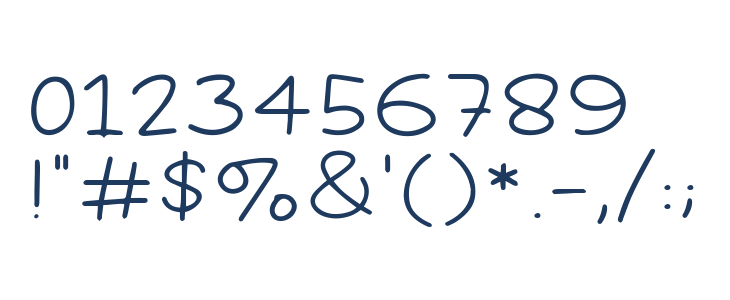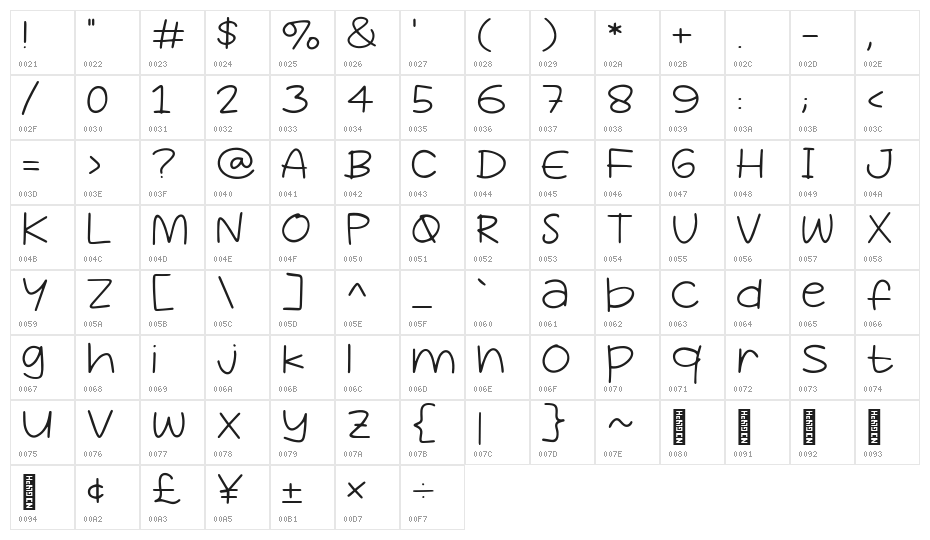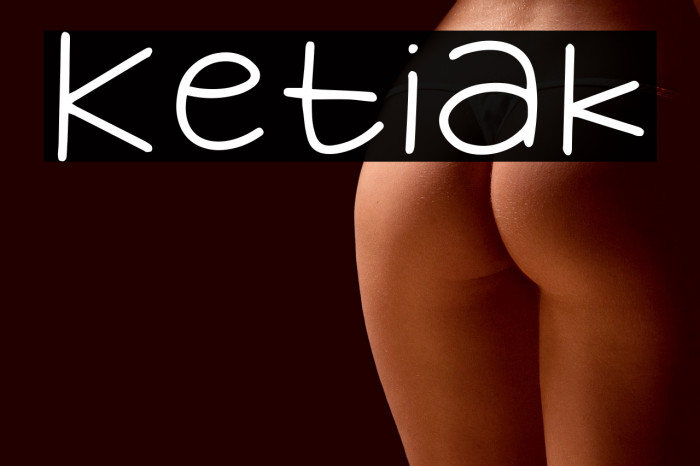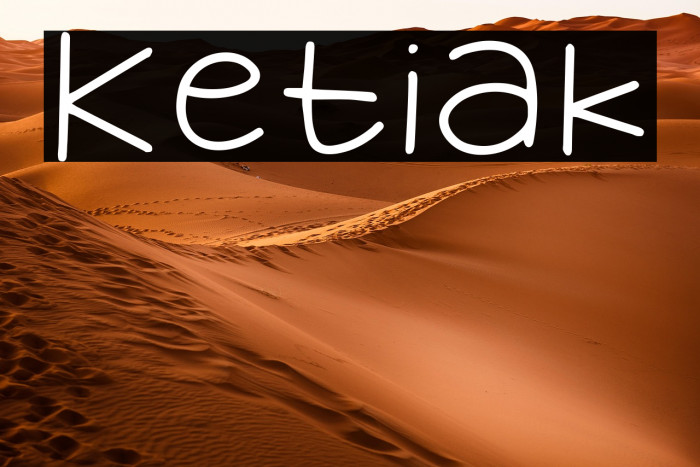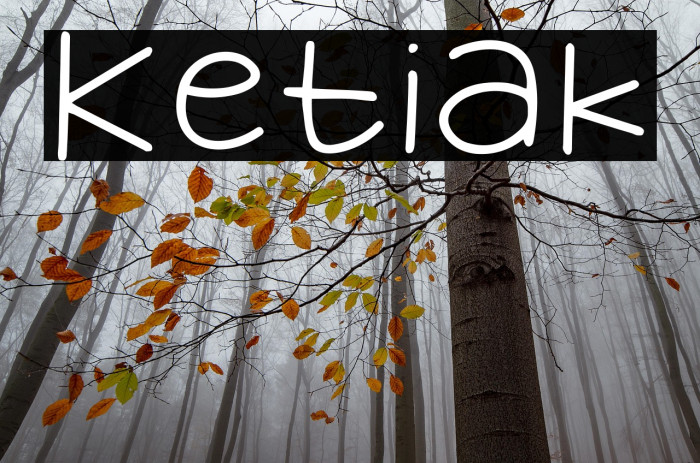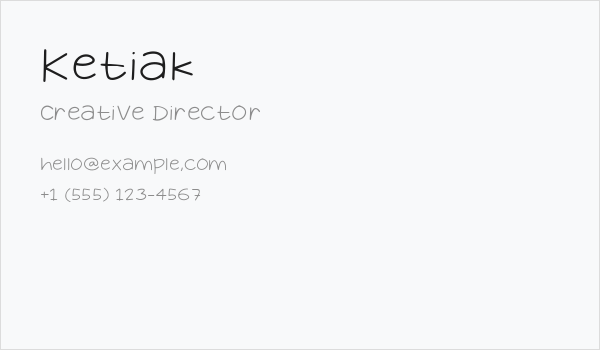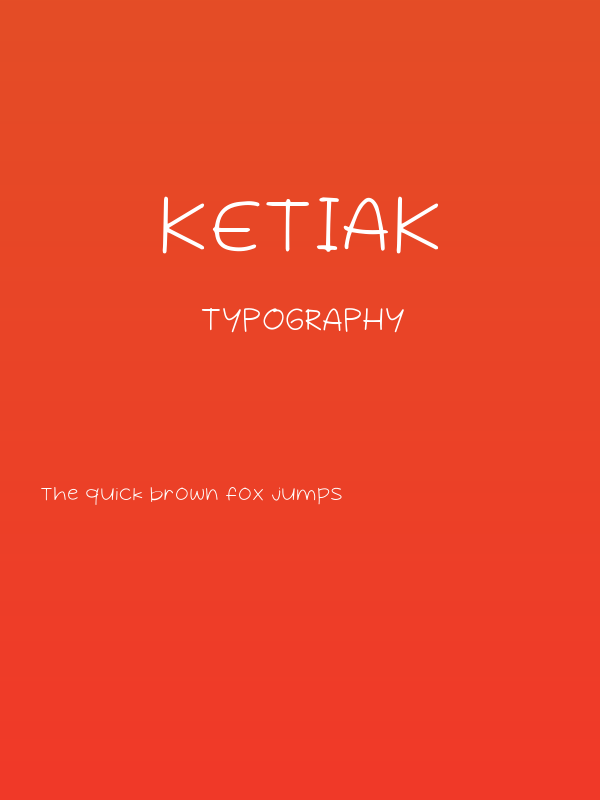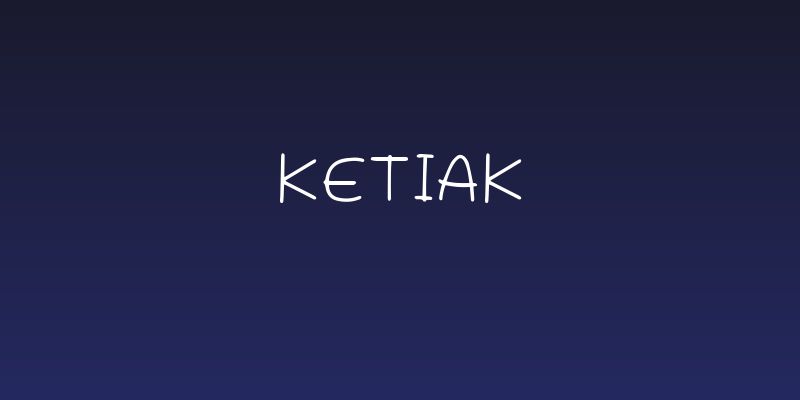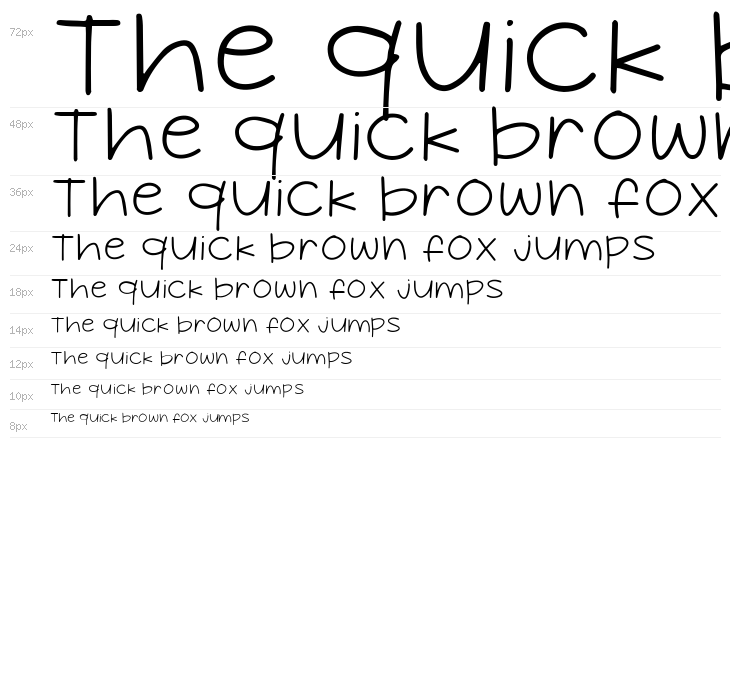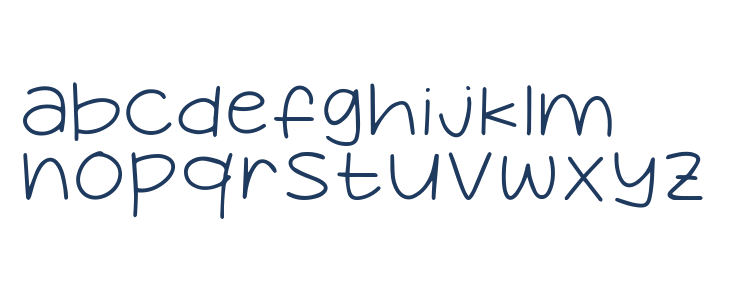
Ketiak Font
Ketiak Description
This font features a playful and informal handwritten style, characterized by its rounded and slightly irregular letterforms. The strokes are consistent in width, giving it a uniform appearance while maintaining a casual and friendly vibe. The uppercase and lowercase letters are well-balanced, with a slight tilt that adds to the font's dynamic feel. Numbers and special characters are designed to match the overall aesthetic, making it versatile for various uses. The font's simplicity and readability make it suitable for both digital and print media.
| Proposed Projects | Ideal for children's books, greeting cards, casual branding, and social media graphics. |